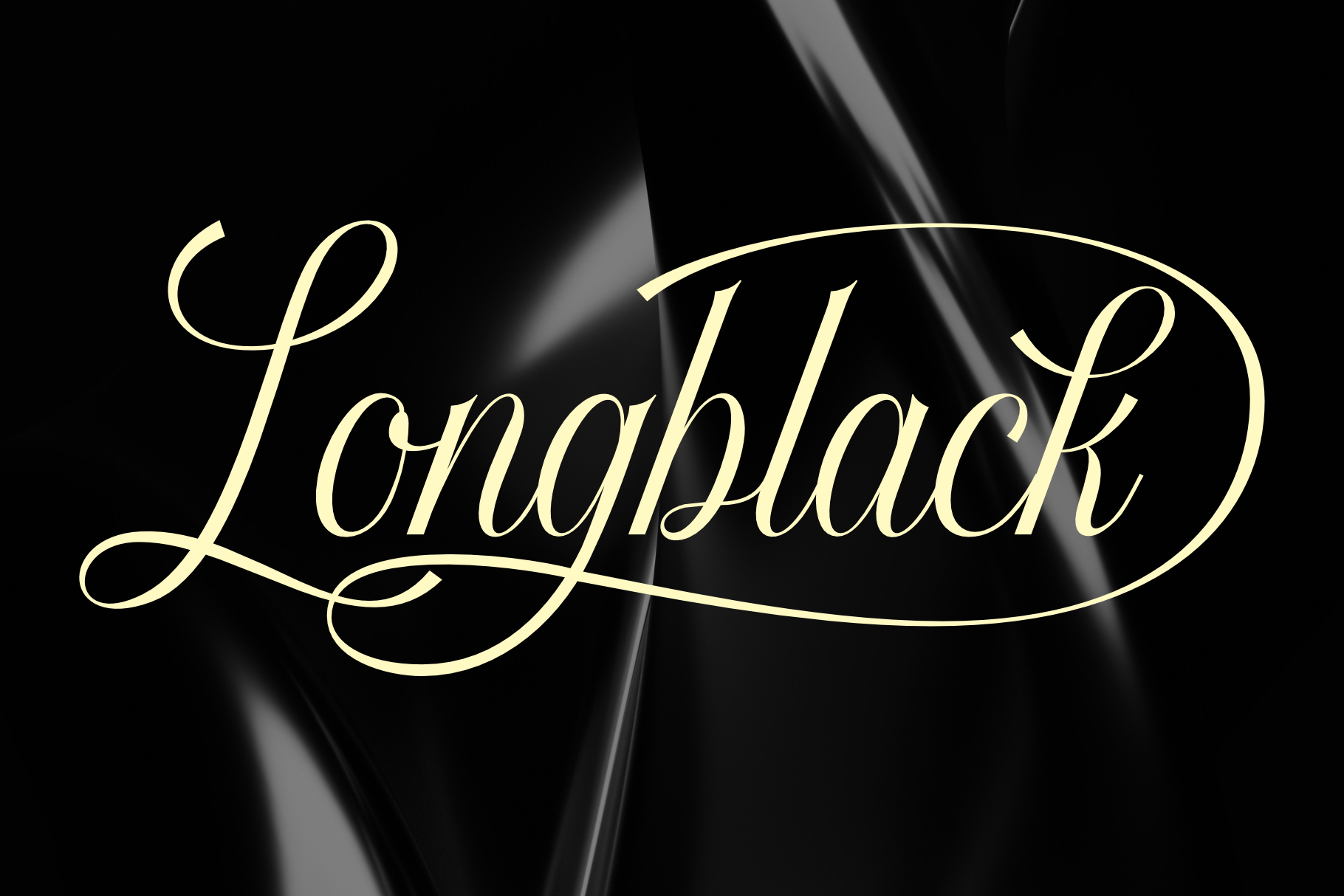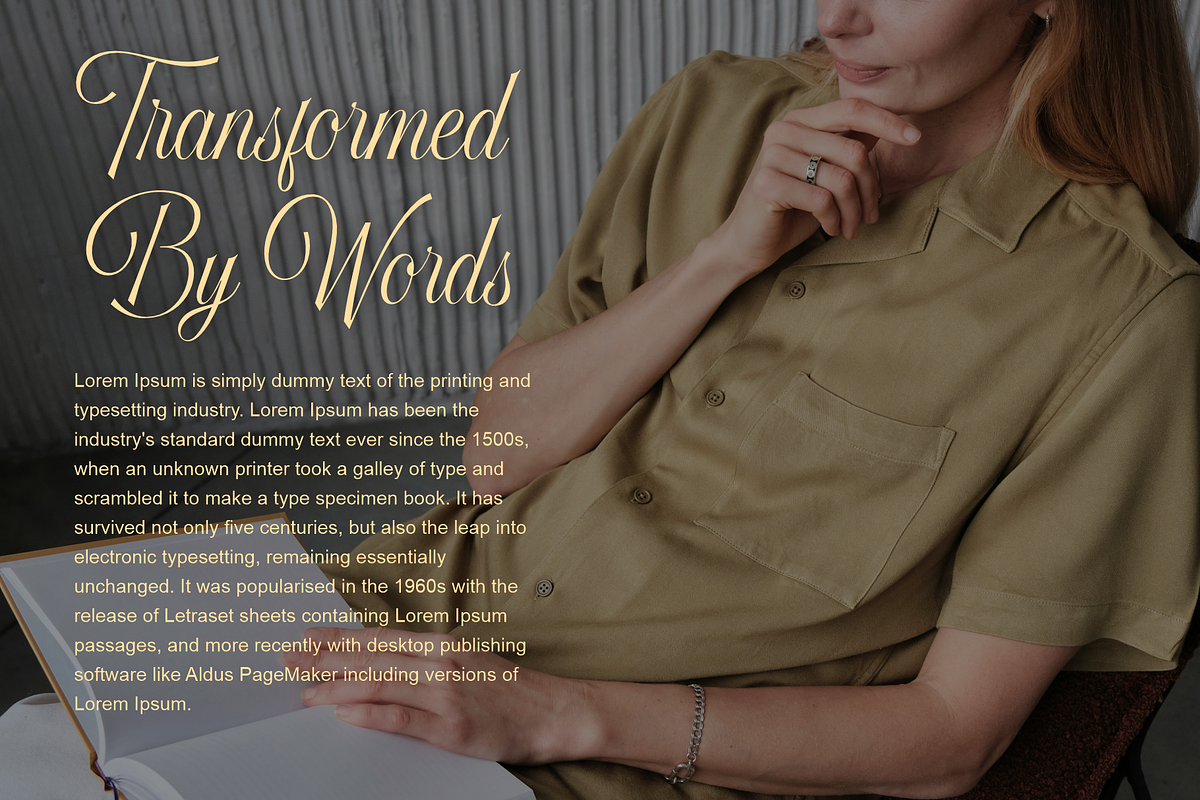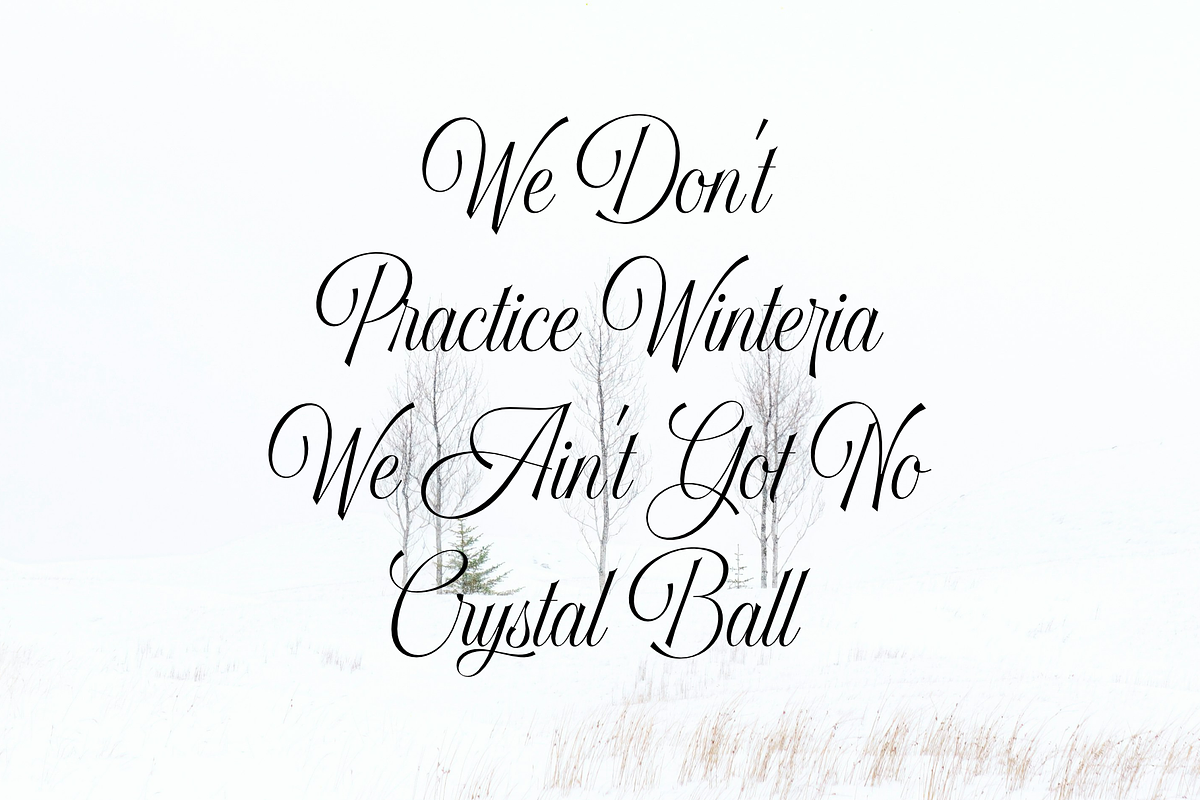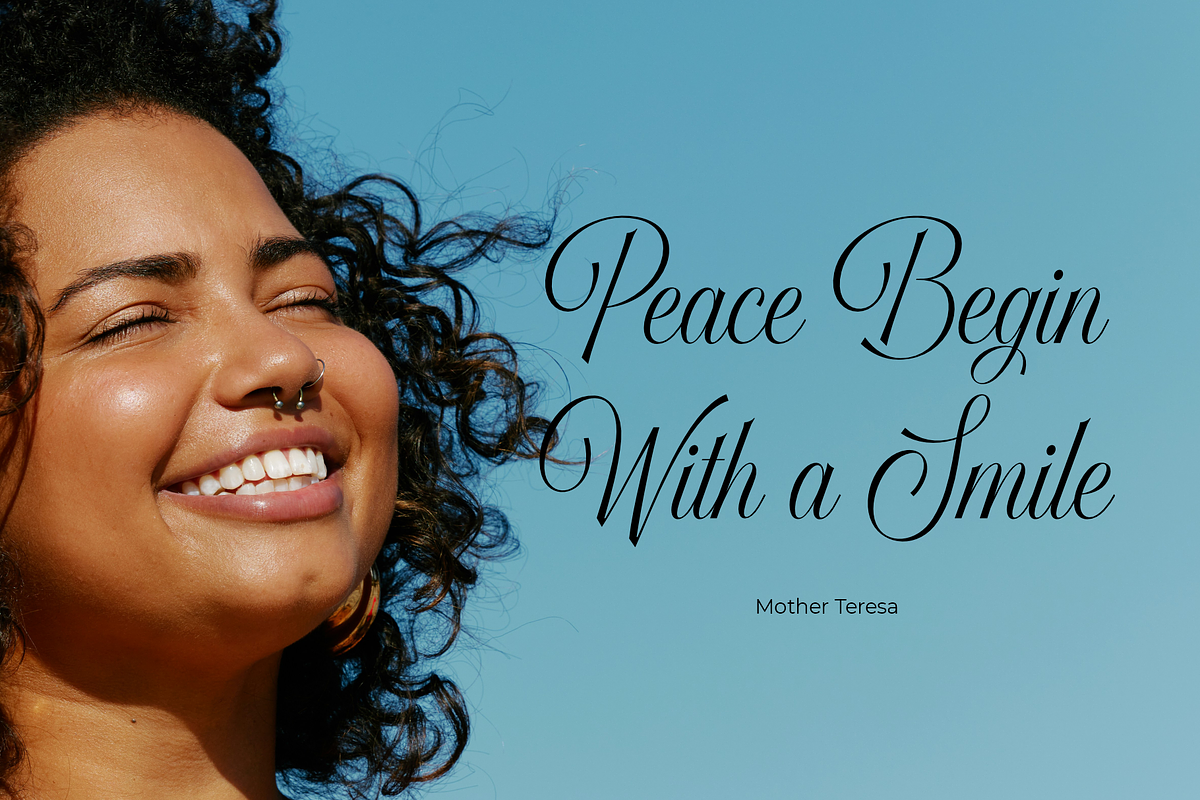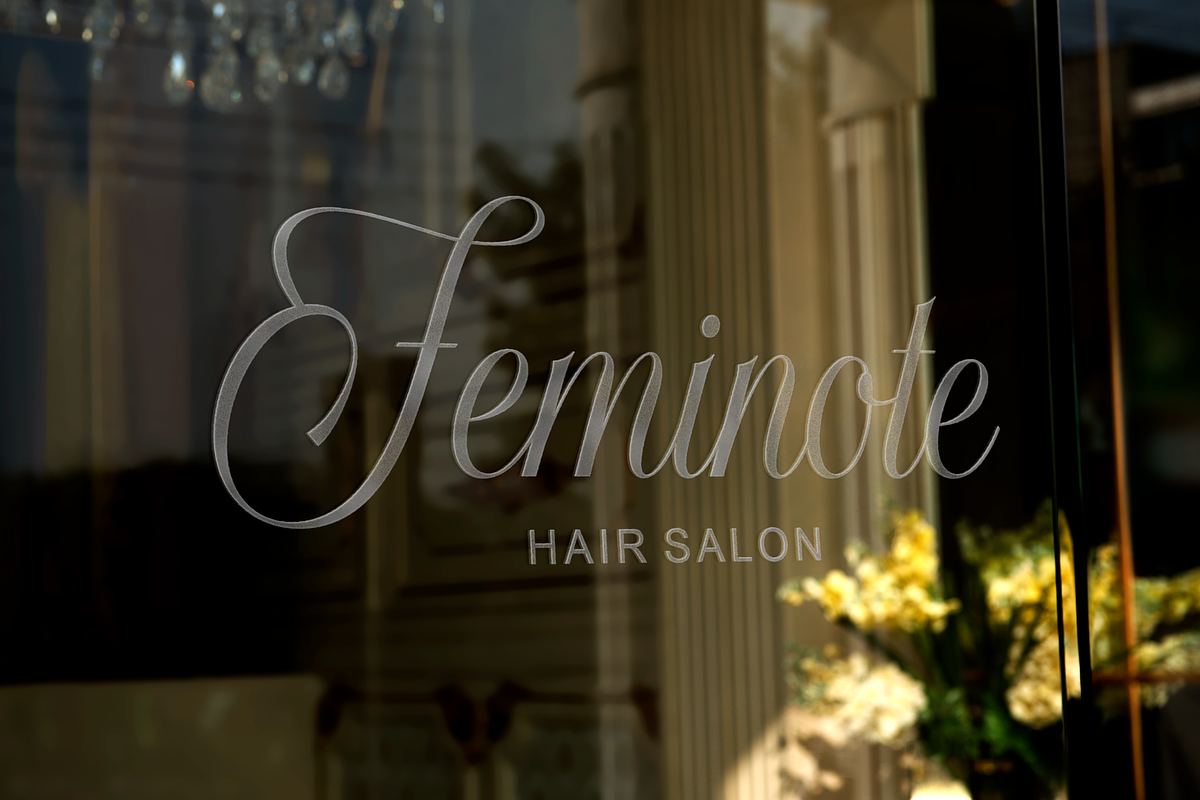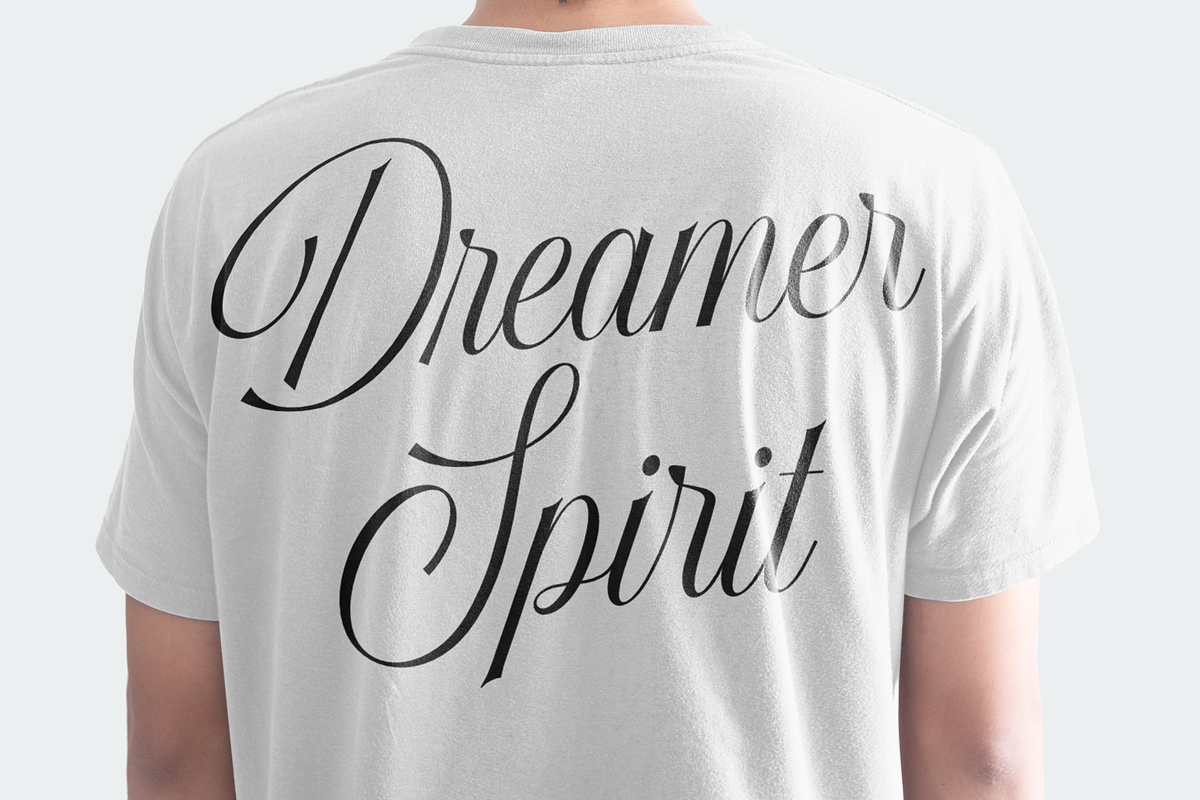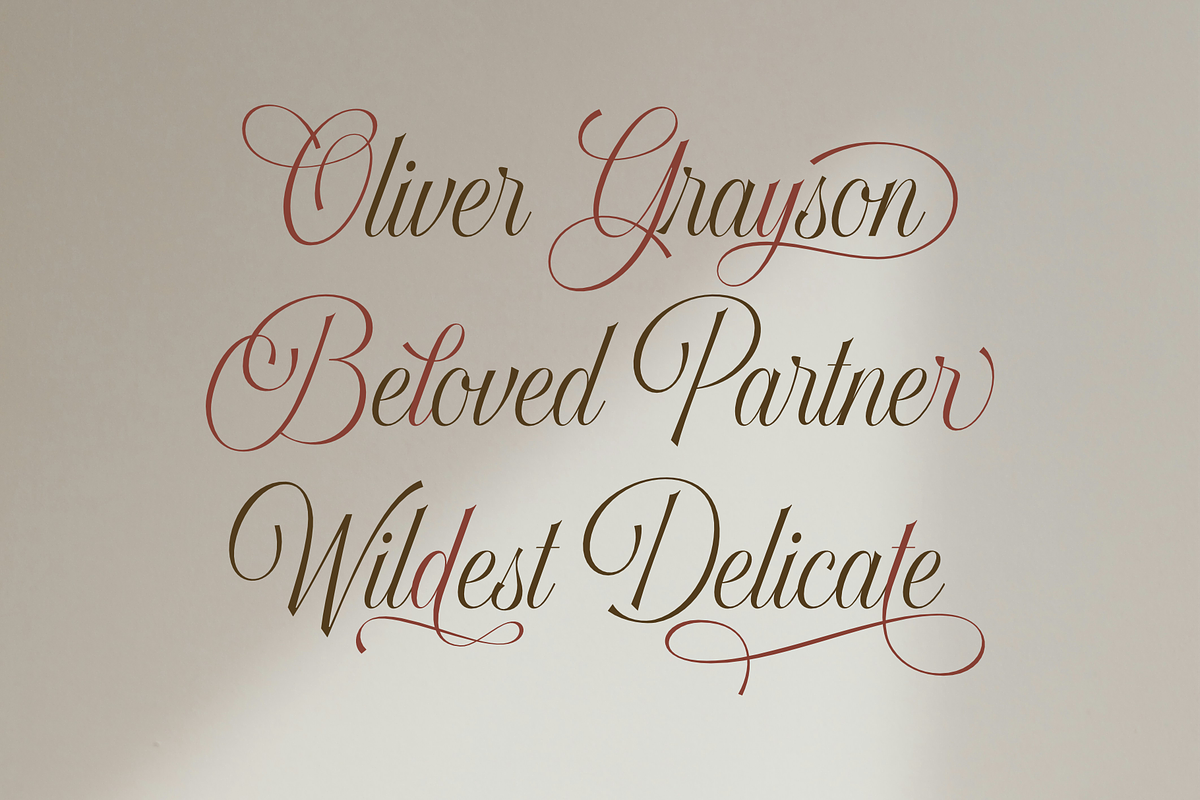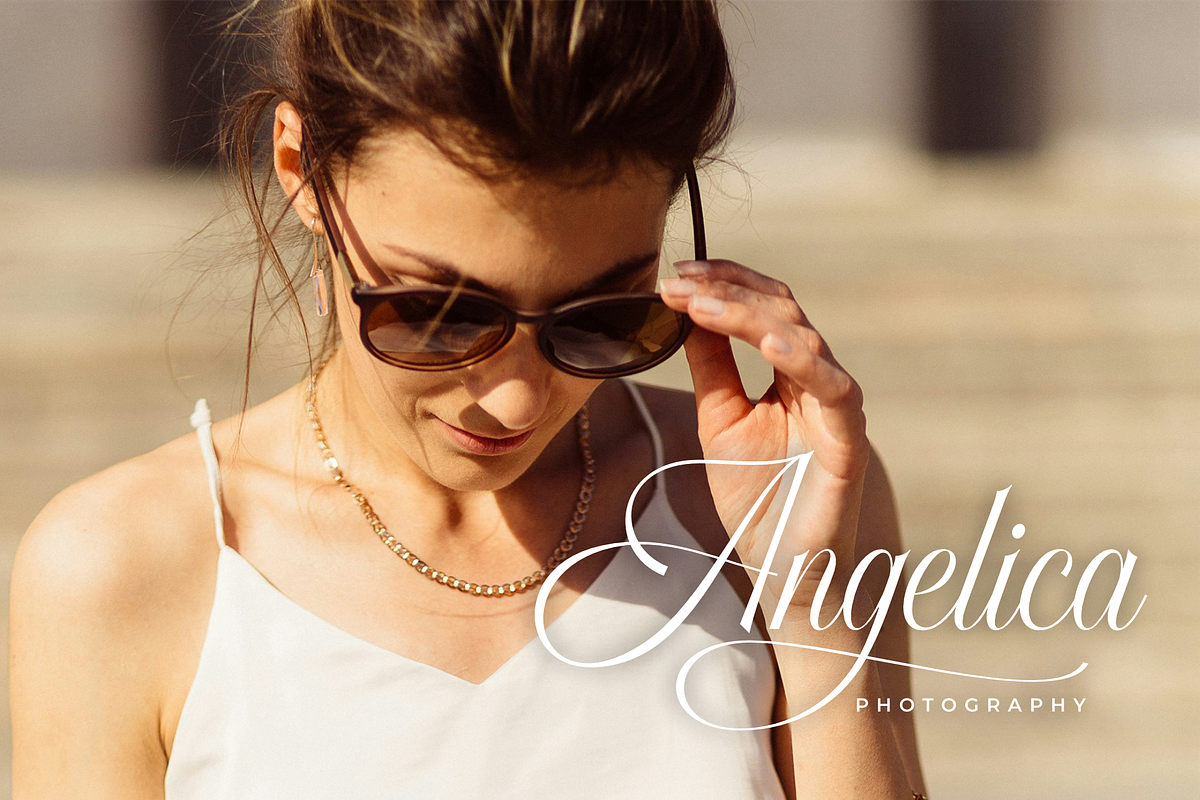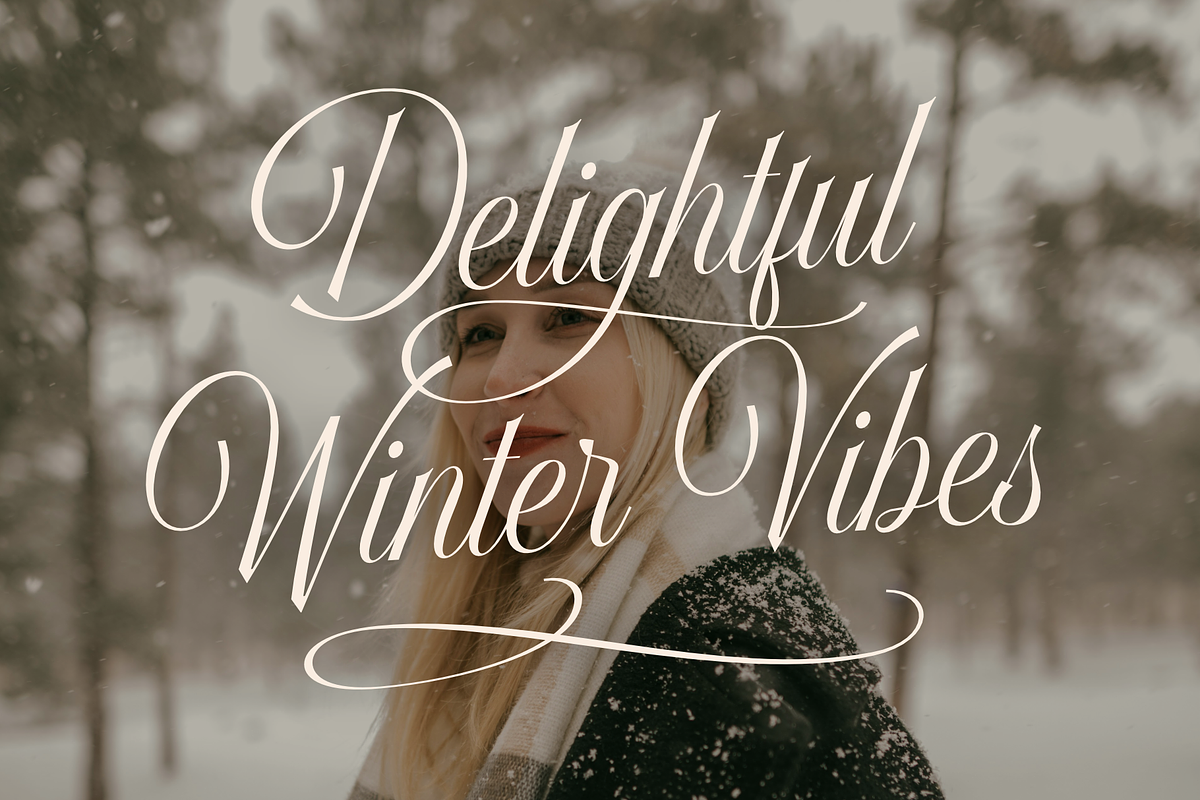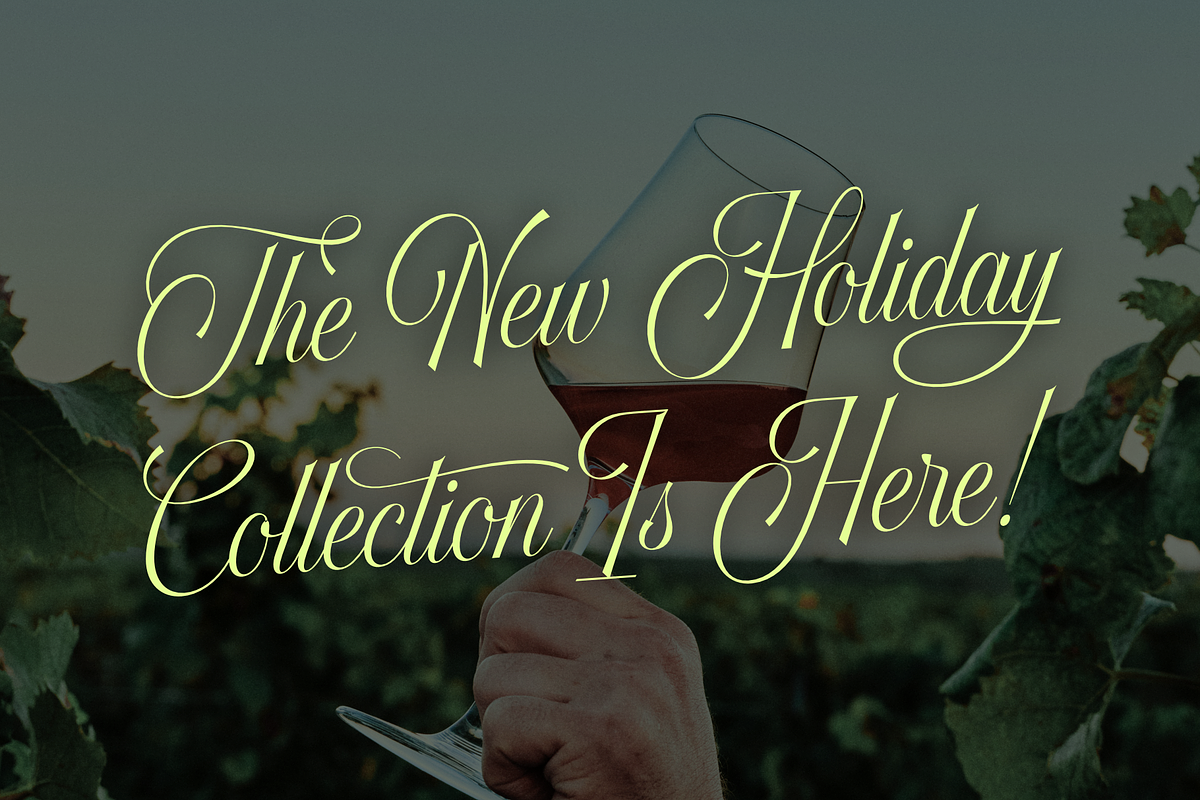
Longblack - Elegant & Versatile Font
Say hello to Longblack Font! This elegant typeface effortlessly combines style with sophistication, making it the perfect choice for all your creative projects. Whether you're designing logos, invitations, or social media posts, Longblack Font delivers a smooth balance that creates a lasting impression.
Why You'll Love Longblack Font:
- Stylish Elegance: With its sleek lines and refined curves, Longblack Font instantly elevates your designs, adding a touch of class and sophistication wherever it's used.
- Works Great in Canva: Unlock your creativity with Longblack Font’s OpenType features, easily accessible in Canva! Customize your text with exquisite ligatures and alternates that bring your designs to life.
- Versatile for All Projects: From branding to greeting cards, Longblack Font adapts beautifully to any context, making it your go-to font for every occasion.
- Widespread Language Support: Spanish, English, Portuguese, French, Turkish, Italian, Indonesian, Polish, Tagalog, Romanian, Dutch, Serbian, Hungarian, Zulu, Czech, Swedish, Albanian, Croatian, Danish, Slovak, Finnish, Norwegian, Catalan, Lithuanian, Slovenian, Zazaki, Latvian, Estonian, Maltese, Aromanian, Breton, Gagauz, Scottish Gaelic, Walser German, Esperanto, Latin.